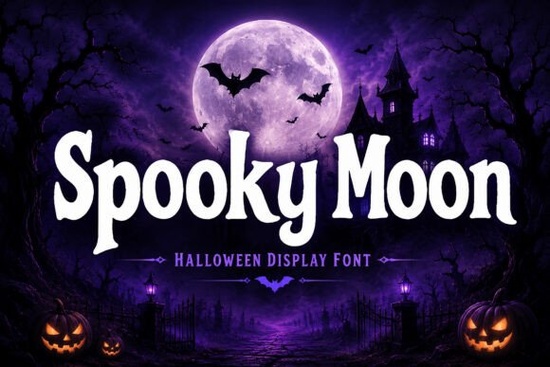
If you're looking for a Halloween font that feels handmade, slightly eerie, and full of character without being overly cartoonish or hard to read Spooky Moon Font fits right in. It’s not just another “scary” typeface slapped together for October. Instead, it balances bold, confident letterforms with subtle irregularities: uneven curves, intentional weight shifts, and a hand-drawn texture that gives it warmth and authenticity. That makes it especially useful for designers and crafters who want their Halloween projects to stand out not just scream “spooky,” but invite closer looks.
When does Spooky Moon work best?
This is a display font, so it shines where impact matters most: headlines, posters, social thumbnails, and product packaging. Think about the last time you saw a Halloween invitation that made you pause not because it was flashy, but because the type felt like it belonged to the theme. That’s what Spooky Moon delivers. It works well for:
- Invitations for haunted house events or neighborhood trick-or-treat parties
- Instagram or Pinterest graphics with short, punchy quotes (“Beware the moonrise” or “Enter if you dare”)
- T-shirt designs where readability and personality both matter
- Book covers for cozy horror, paranormal romance, or YA mystery novels
- Cricut and Silhouette projects especially vinyl decals for mugs, pillows, or seasonal decor
It’s not meant for long paragraphs or body text, and that’s fine. Good display fonts know their role and Spooky Moon plays it confidently.
Because it’s designed as a high-quality display typeface, spacing and kerning have been adjusted by hand not auto-generated. That means letters sit comfortably next to each other, even at larger sizes, and your headlines won’t look awkward or cramped.
How does it compare to other seasonal fonts?
Unlike some Halloween fonts that lean too heavily into clichés (think dripping blood or jagged edges), Spooky Moon keeps things playful yet refined. It shares a similar handcrafted energy with the Cute Crayon Font, but swaps sweetness for subtle mystery. If you’ve used the Vintage Bold Font for retro party invites, you’ll appreciate how Spooky Moon offers the same strong presence but with a seasonal twist. And while the Subway Graffiti Font brings urban edge, Spooky Moon leans into folklore and quiet tension instead.
For print-on-demand sellers, it’s also practical: its clean outlines scale well on everything from tote bags to enamel pins. You won’t lose detail when resizing, and it pairs nicely with simpler sans-serif fonts for supporting text like the Chocolate Candies Family Font for playful contrast, or the Jersey Number Font if you’re designing sports-themed Halloween merch (think “Team Ghost” jerseys).
Where do people actually use it?
We’ve seen crafters use Spooky Moon for printable Halloween greeting cards sold on Etsy especially ones aimed at adults who love vintage horror aesthetics. Small bakeries have printed it on cupcake wrappers and cookie tags. Teachers use it for classroom decorations and reading challenge posters (“October Spooky Reads”). One indie author chose it for her paranormal cozy mystery series cover and noted readers commented on how the font “felt like the book’s narrator whispering the title.”
It’s also popular with YouTubers creating Halloween-themed thumbnails. Because it reads clearly even at small sizes and doesn’t blur or pixelate it holds up well in compressed formats. Just avoid stacking too many effects (like heavy shadows or glows) over the text; let the font’s natural texture do the work.